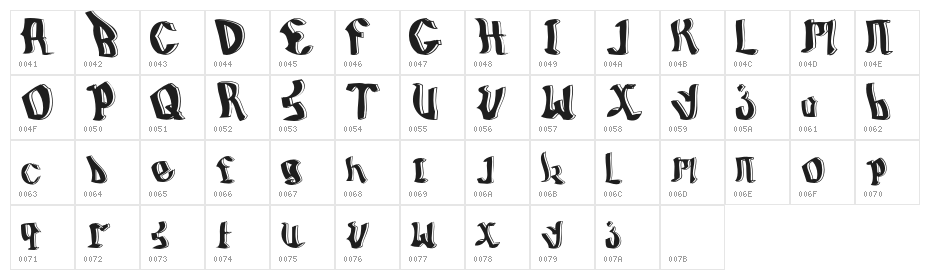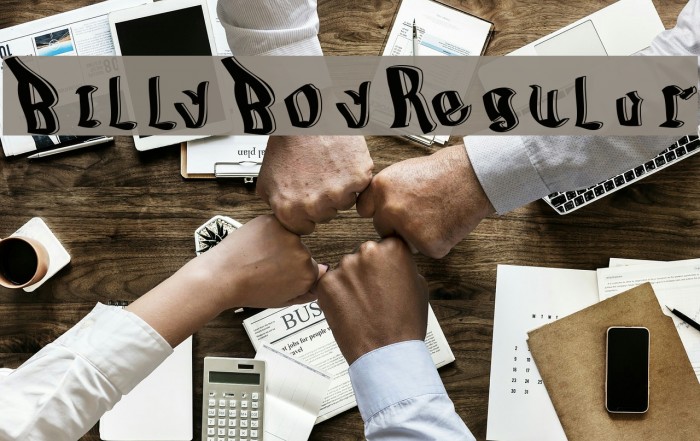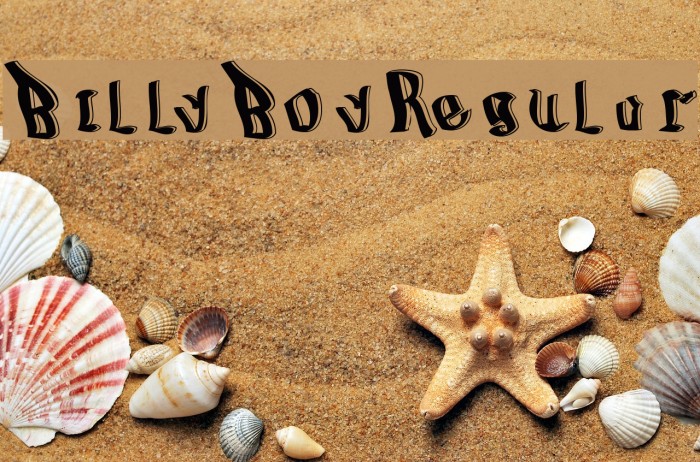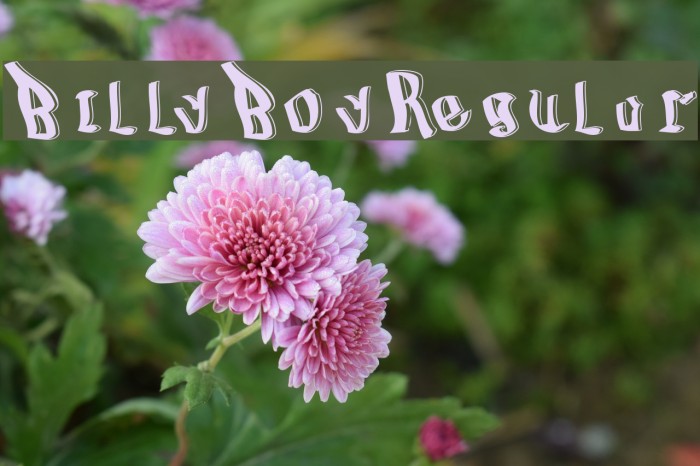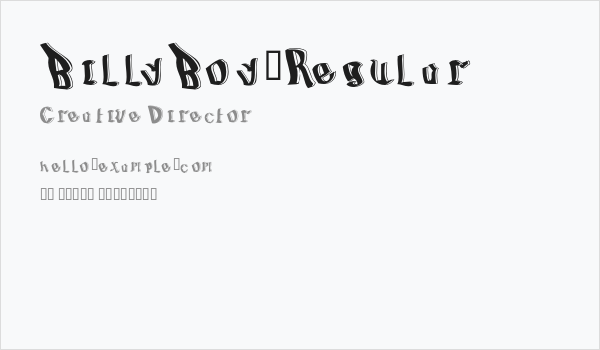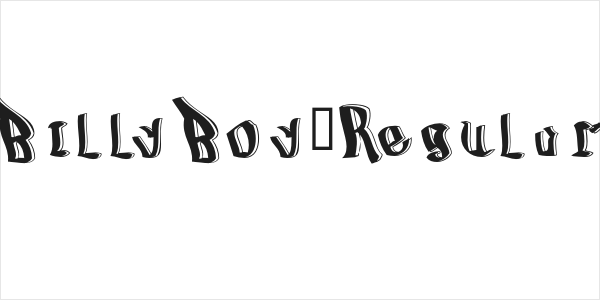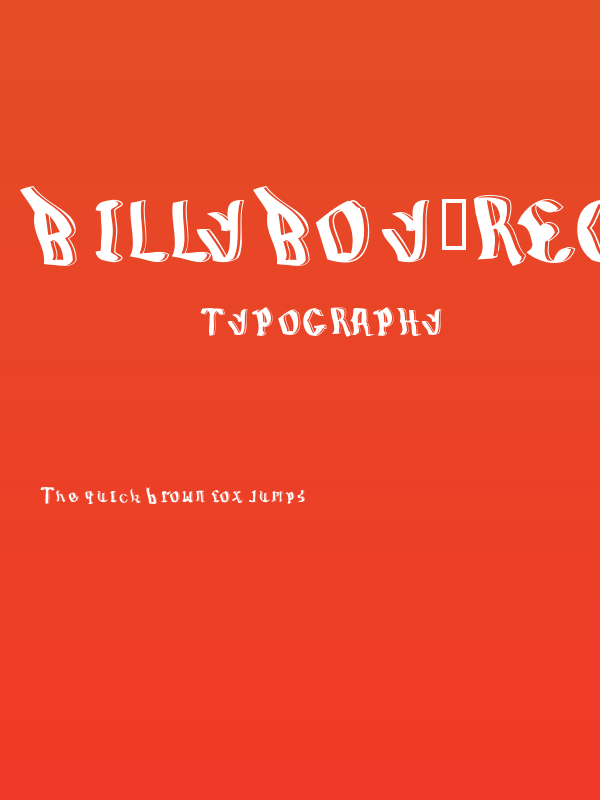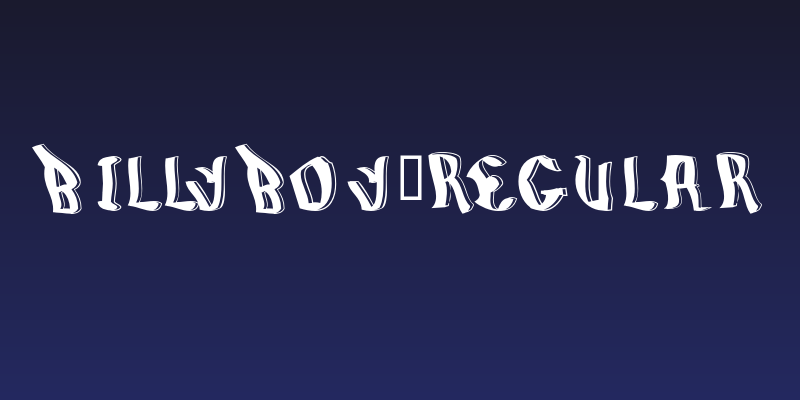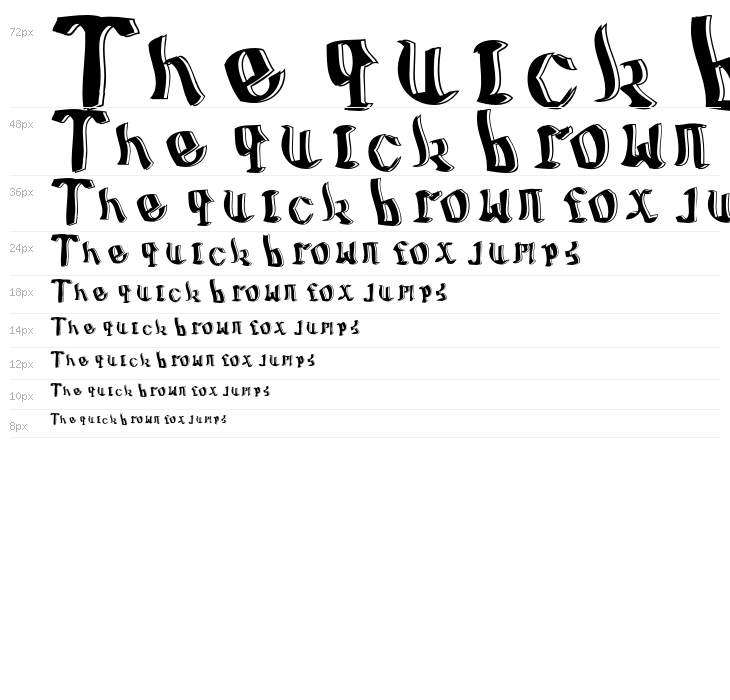
BillyBoy-Regular Font
BillyBoy-Regular Description
This font features a playful and whimsical design with a distinct, artistic flair. The characters exhibit a dynamic, wavy appearance, giving them a sense of movement and energy. The strokes are bold and varied, with some letters having exaggerated curves and angles, creating a unique and eye-catching style. The uppercase and lowercase letters maintain a consistent theme, while the numbers and special characters follow suit with the same creative design. This font is ideal for projects that require a fun and lively touch, such as children's books, posters, or creative branding.
| Proposed Projects | Ideal for children's books, posters, creative branding, and playful designs. |